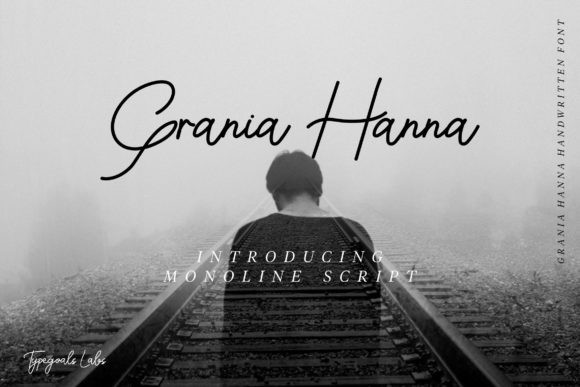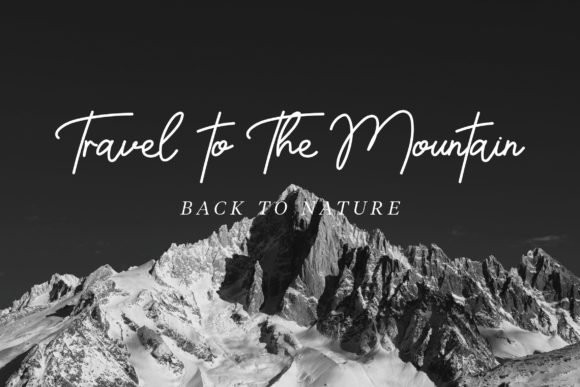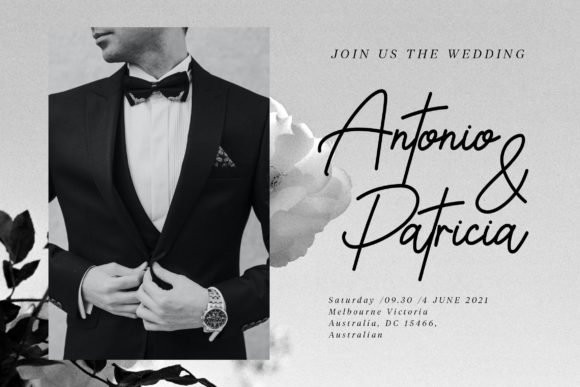
Grania Hanna Font
Grania Hanna is a modern and elegant handwritten font created with elegance in mind. Use it to make your ideas even more realistic and create spectacular designs!